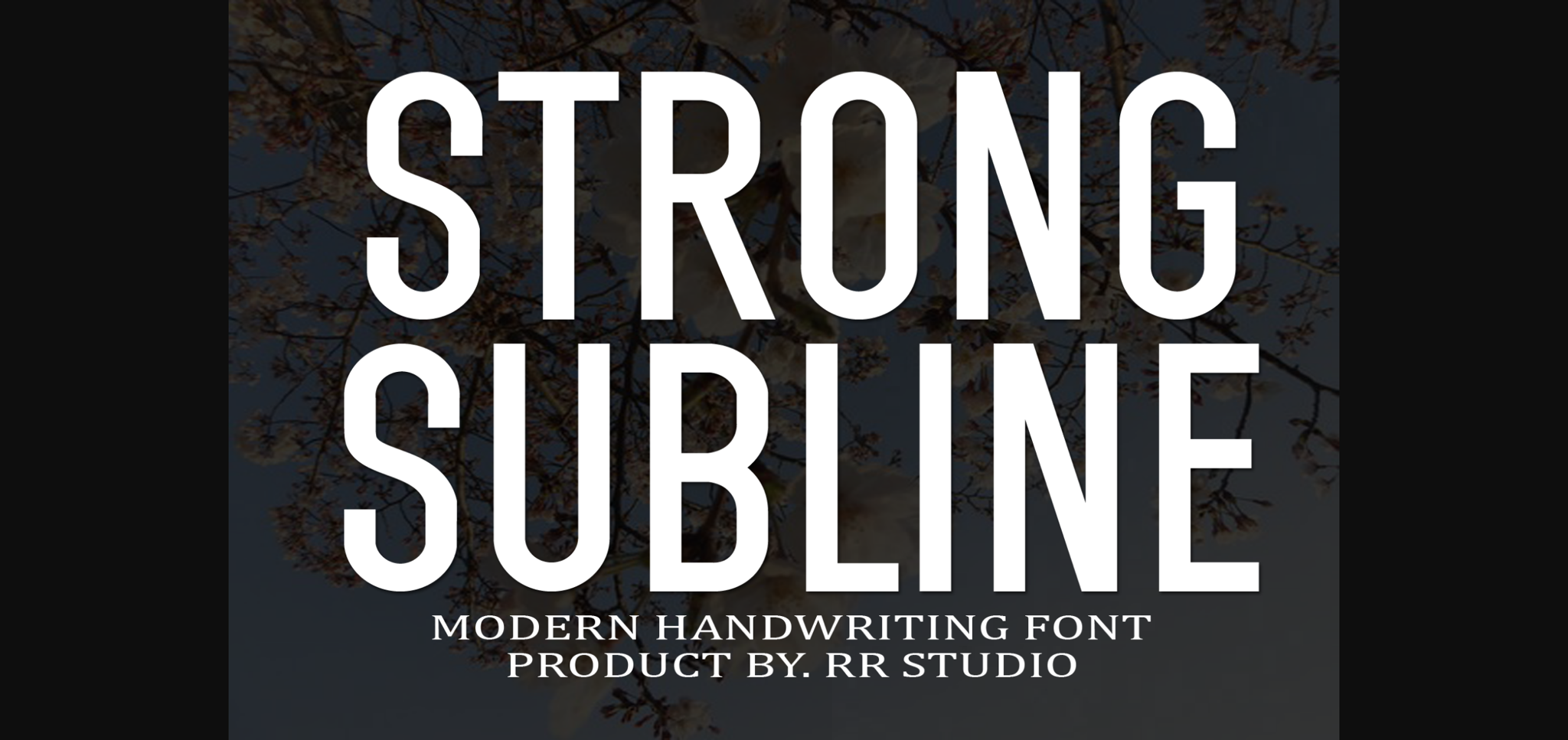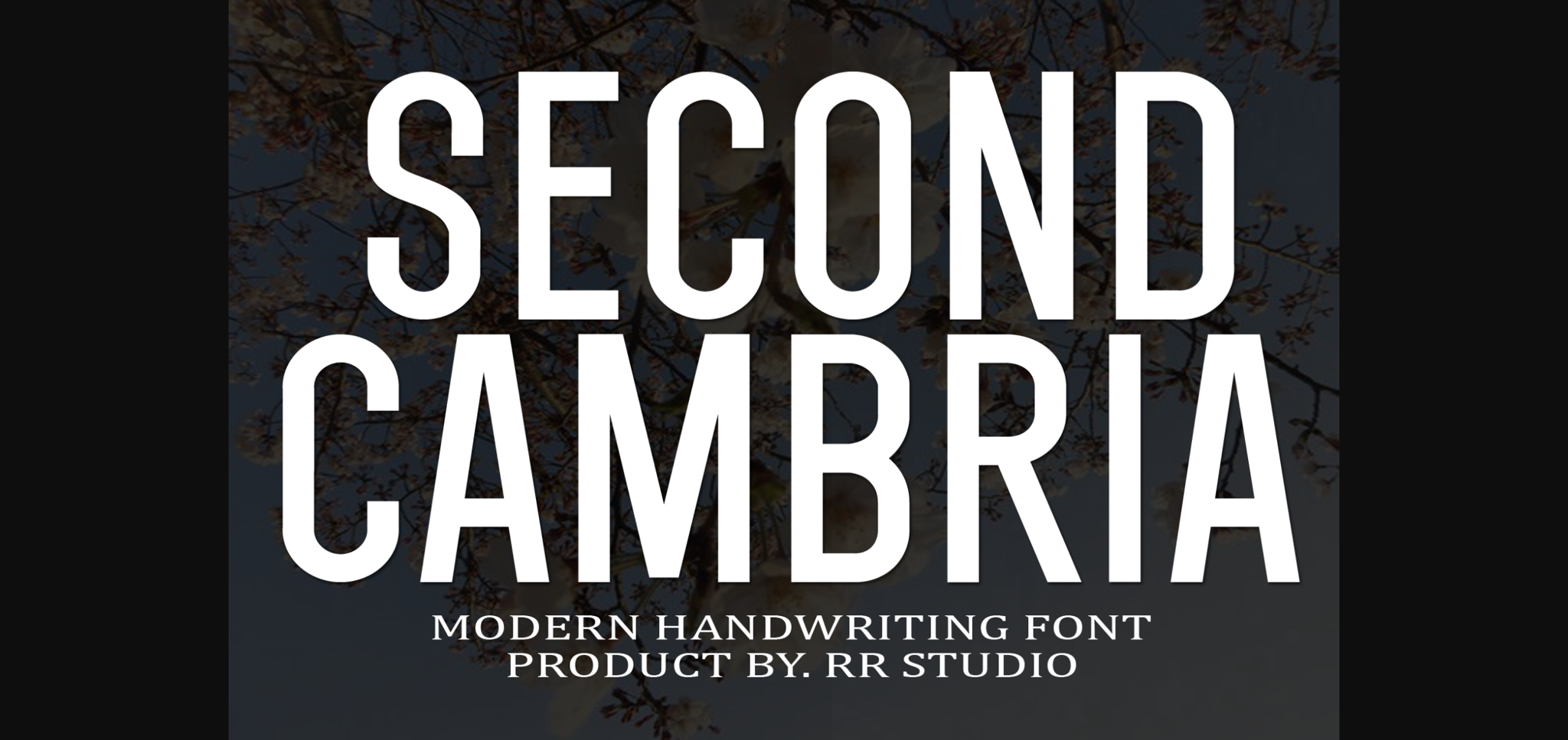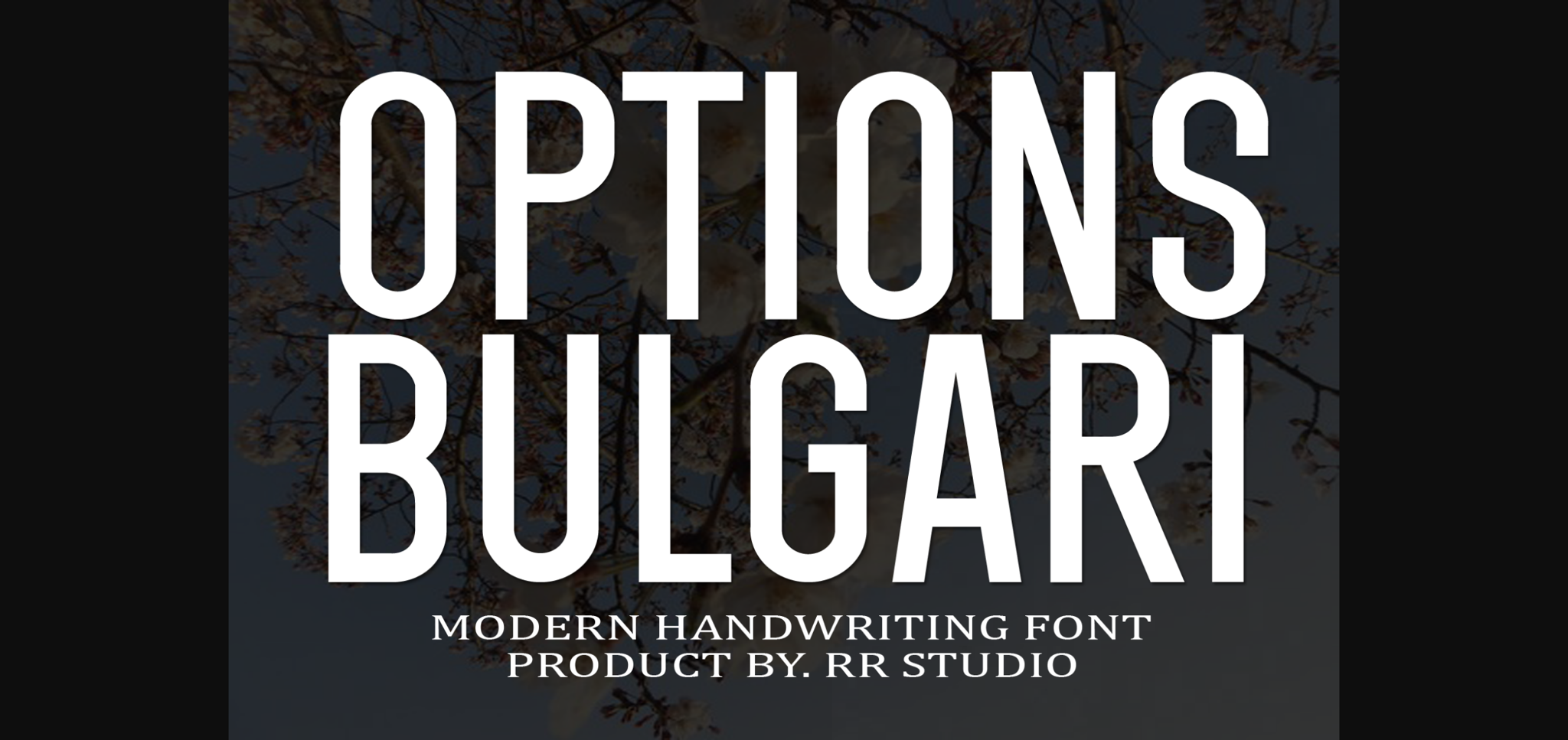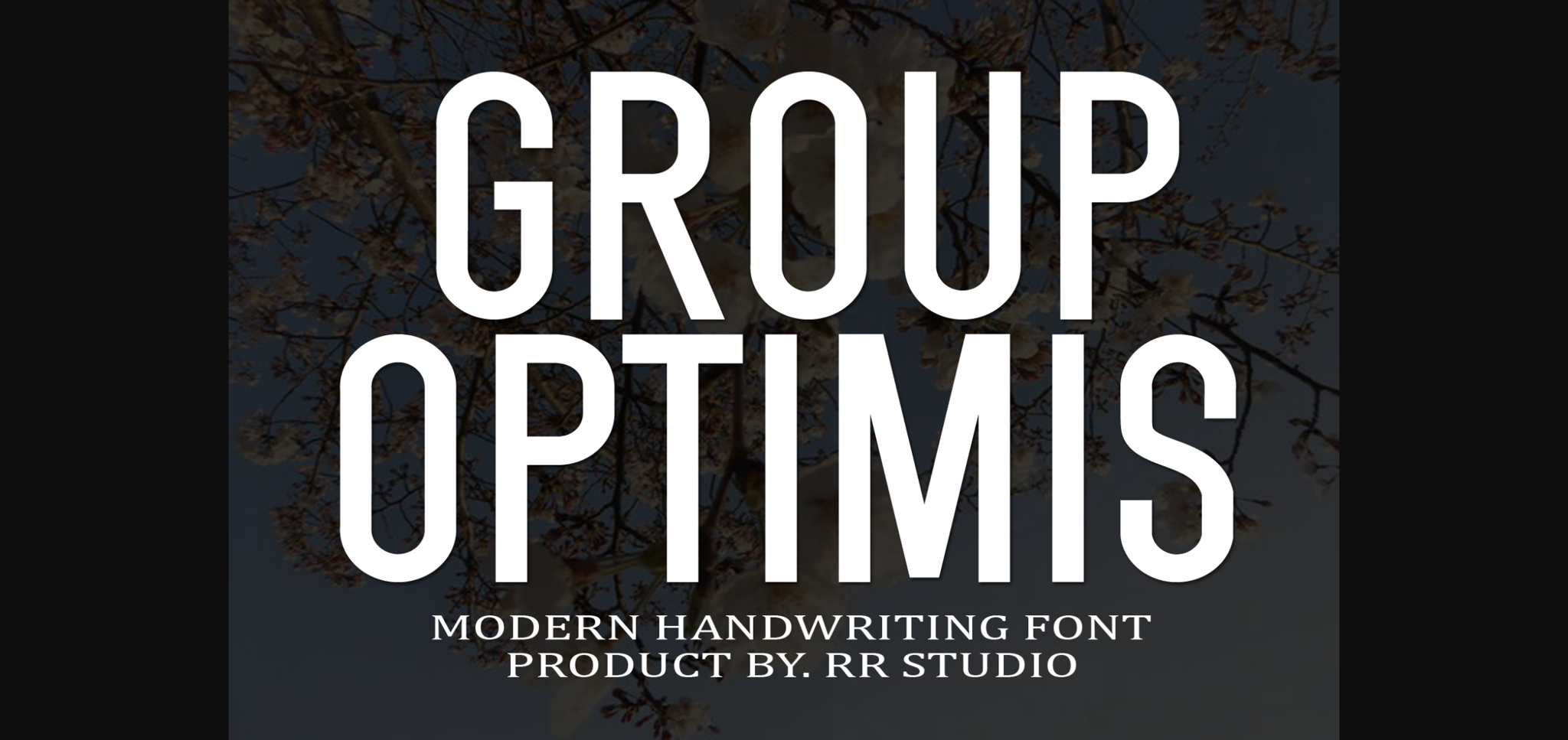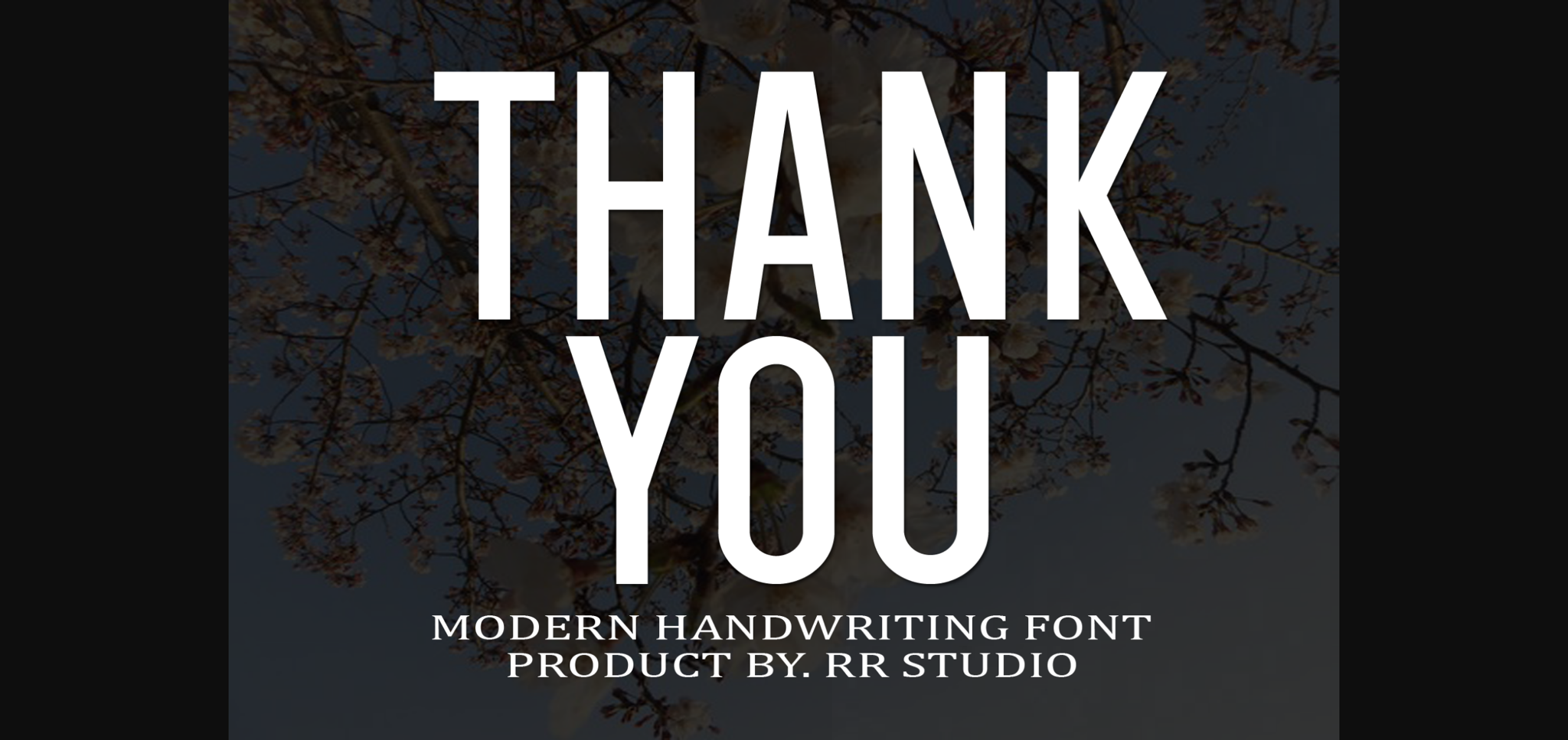
Strong Subline Font
Strong Subline is a stylish and incredibly elegant sans serif font. It looks stunning on wedding invitations, thank you cards, quotes, greeting cards, logos, business cards and every other design which needs a handwritten touch.